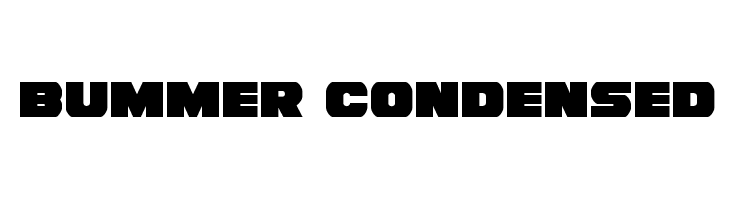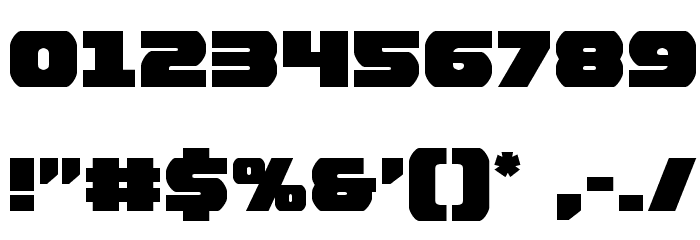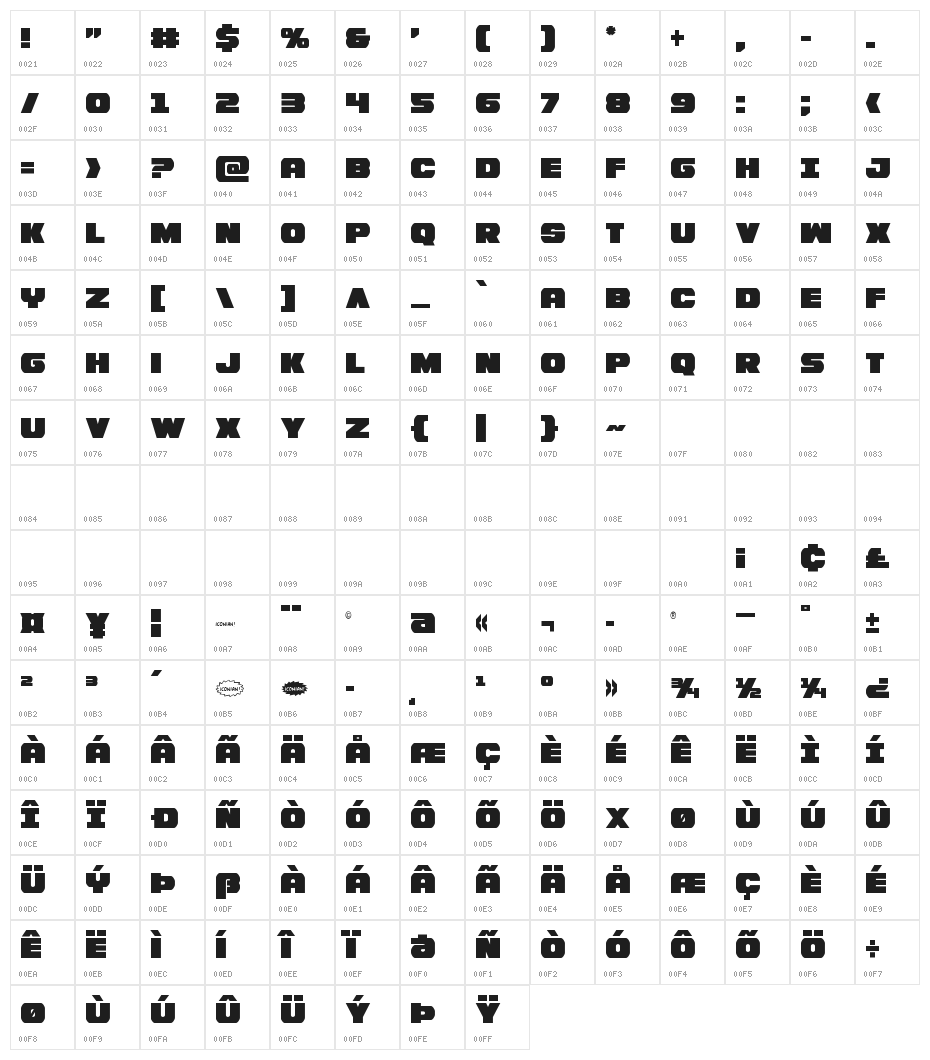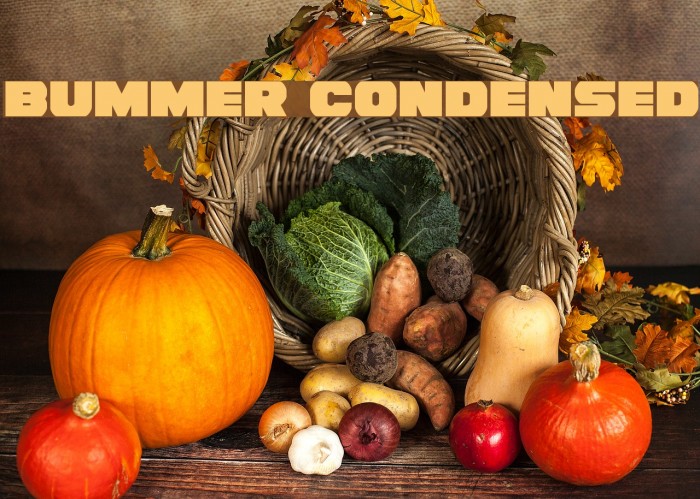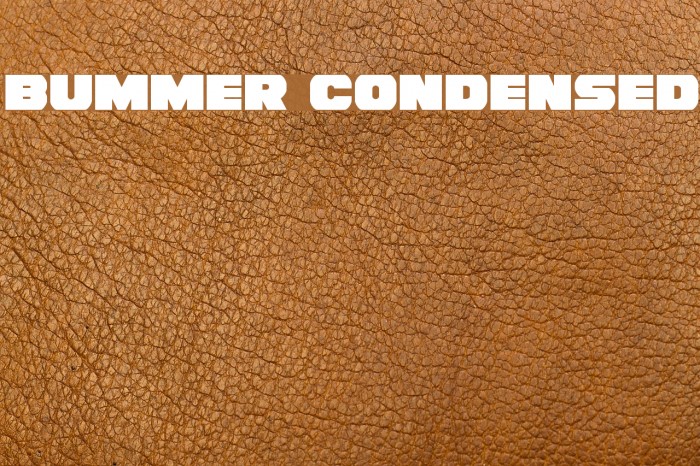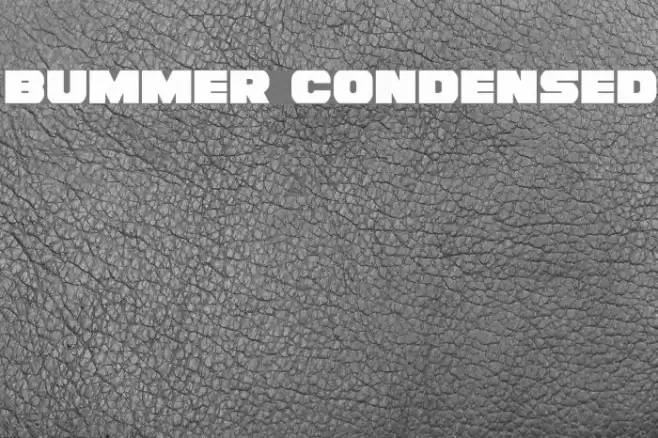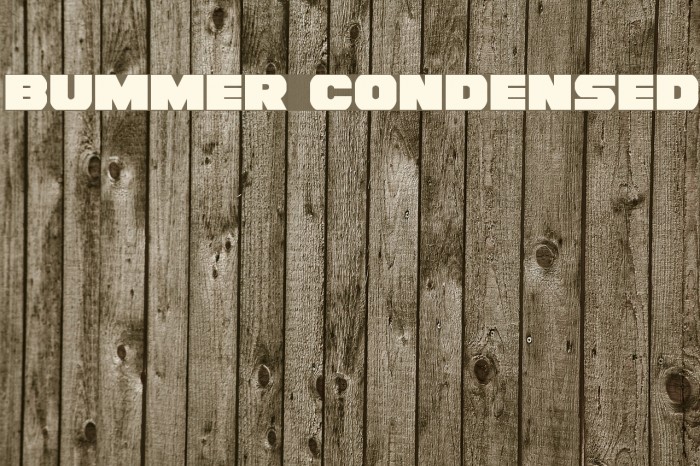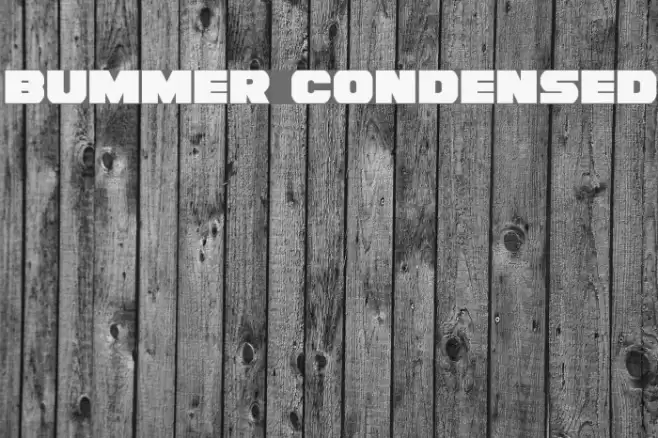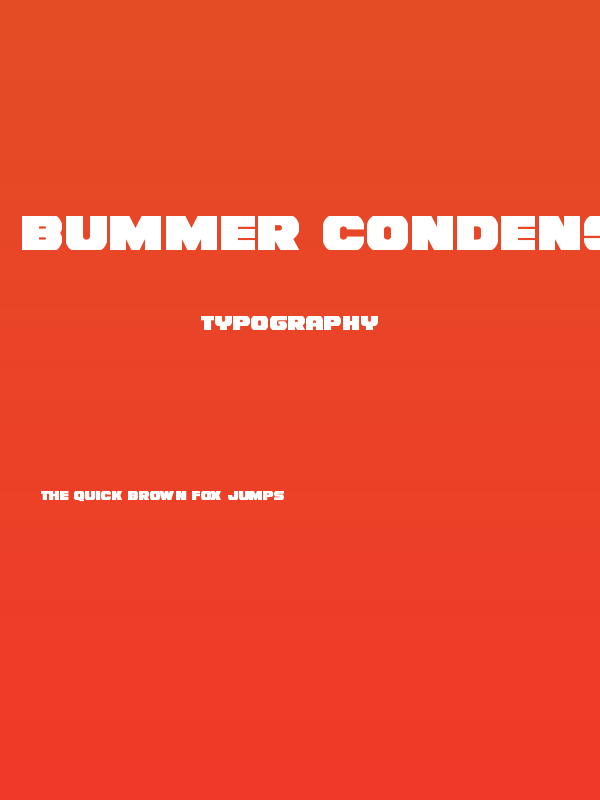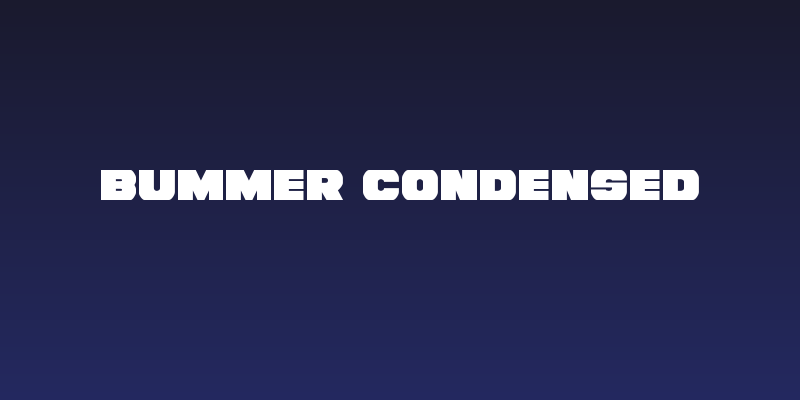
Bummer Condensed Font
Bummer Condensed Description
This bold, condensed font features a strong, impactful presence with its thick, block-like characters. The uppercase letters are uniform in height, creating a cohesive and powerful look. The numbers and special characters maintain the same boldness, ensuring consistency across all elements. The font's geometric shapes and sharp edges give it a modern and assertive style, making it ideal for attention-grabbing designs. Its condensed nature allows for efficient use of space while maintaining readability.
| Proposed Projects | Ideal for posters, headlines, logos, and branding materials that require a bold statement. |